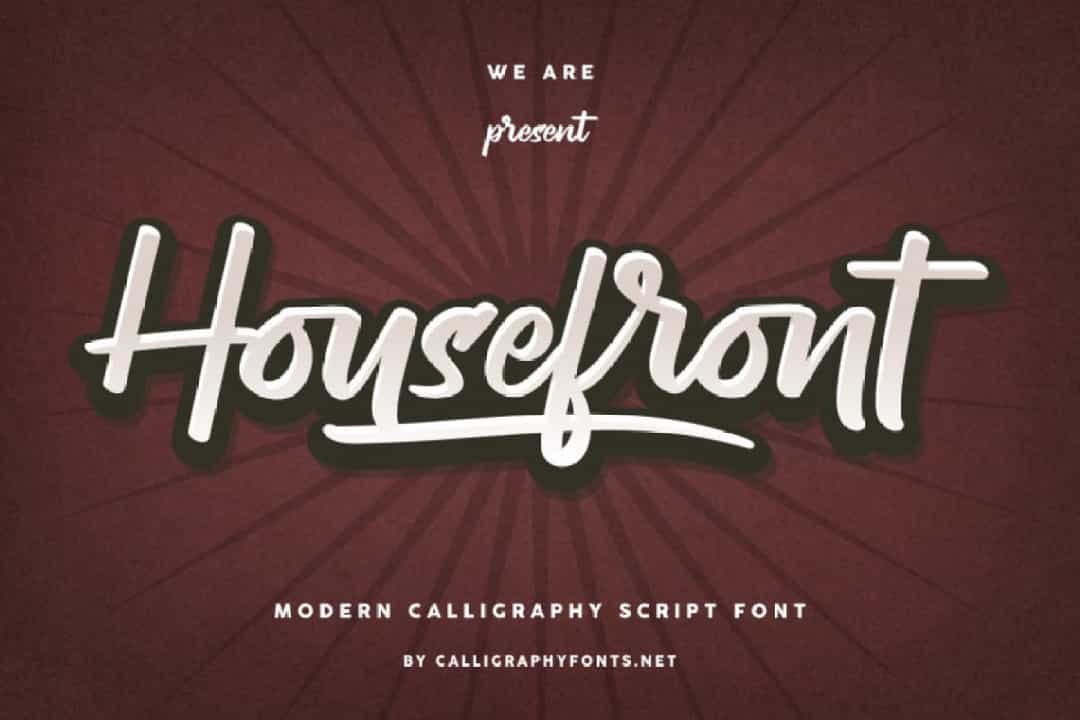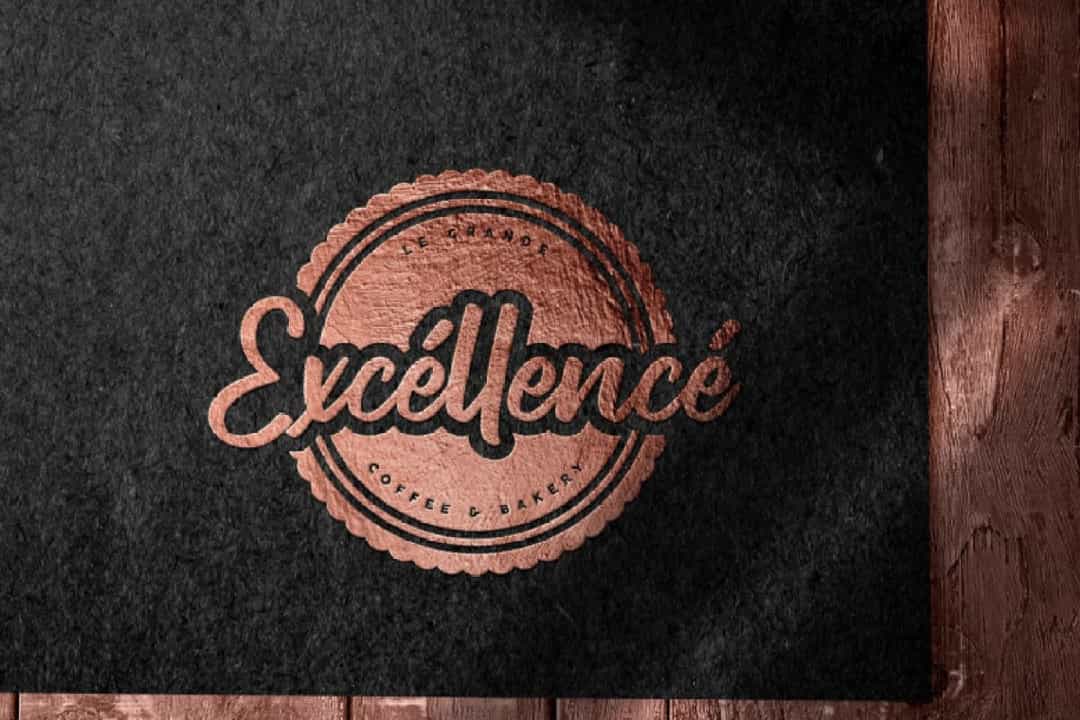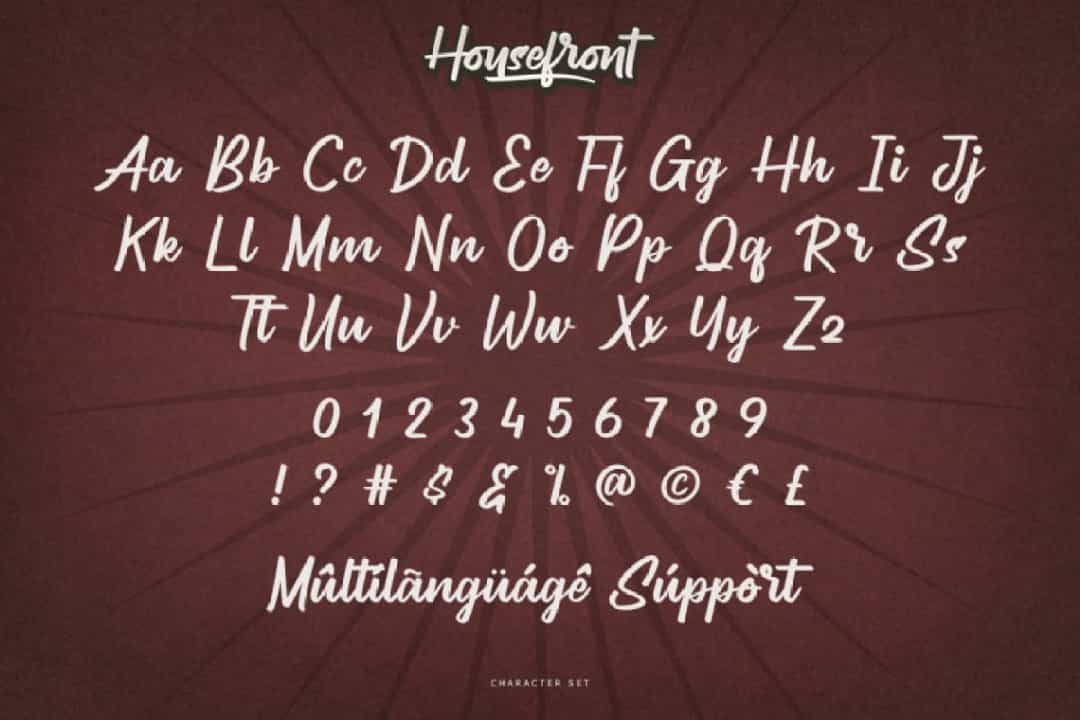
Housefront is a classic calligraphy font, with classy, simple, modern and pretty characters, as well as a luxurious, paint-brush style look. Its perfect legibility, clear geometric style make Housefront an excellent choice for branding purposes, brochures greeting cards posters quotes stationary designs headers for blogs or other uses.